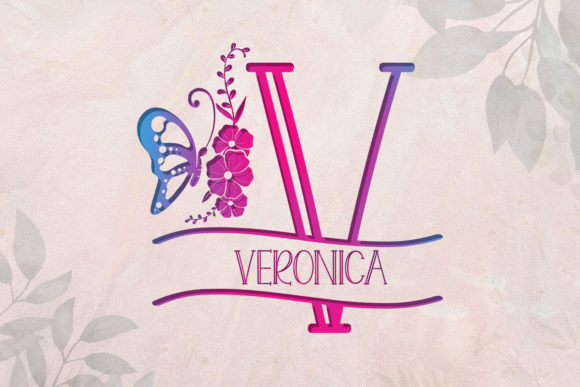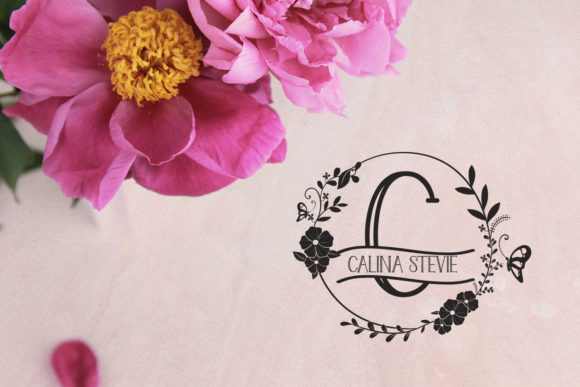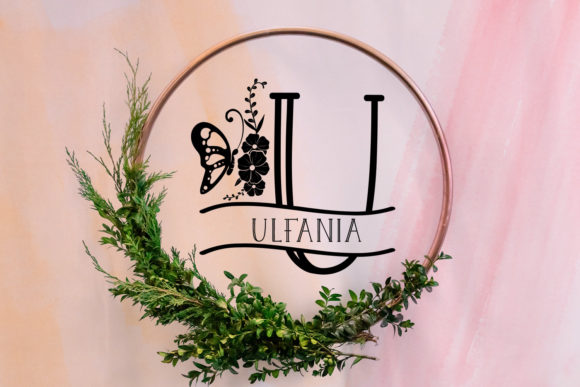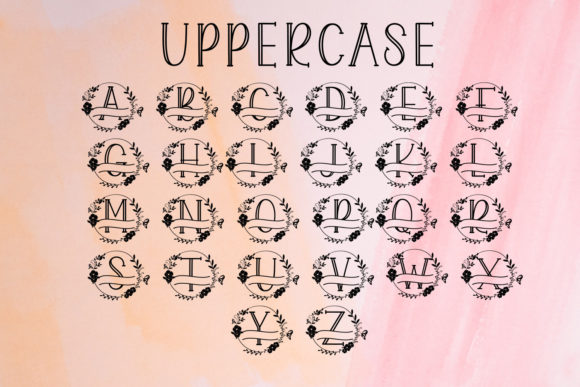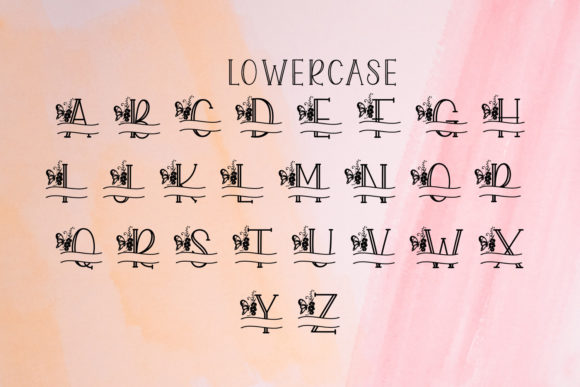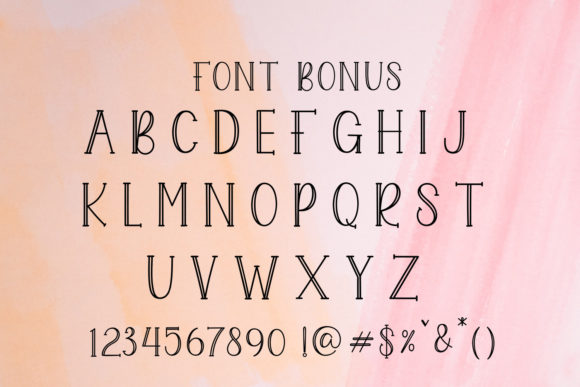
Introduction to Sania Monogram Font
Sania Monogram is a dainty and unique decorative font.
Add this romantic and lovely looking font to each of your love letters, wedding invitations or favorite design ideas, and you will be astounded by the outcome .